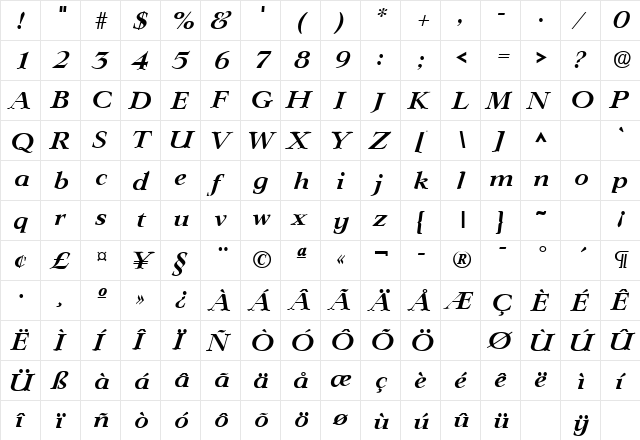
Lingwood Bold Italic
Design Context for Lingwood Typeface
Lingwood echoes the hand-painted signage and woodblock typography of the American frontier, with a warm, rugged personality. Its italic angle brings a sense of urgency and motion to the letterforms. The heavy weight commands attention and anchors typographic hierarchies.
A natural fit for craft spirits, ranch branding, rodeo events, and Americana-inspired design work.
Font Pairing: Combine Lingwood with a simple slab or neutral sans — period-accurate companions reinforce the vintage feel without competing for attention.
Pro Tip: Use Lingwood for short, impactful bursts of text — it shines in poster headlines and product names rather than extended copy.